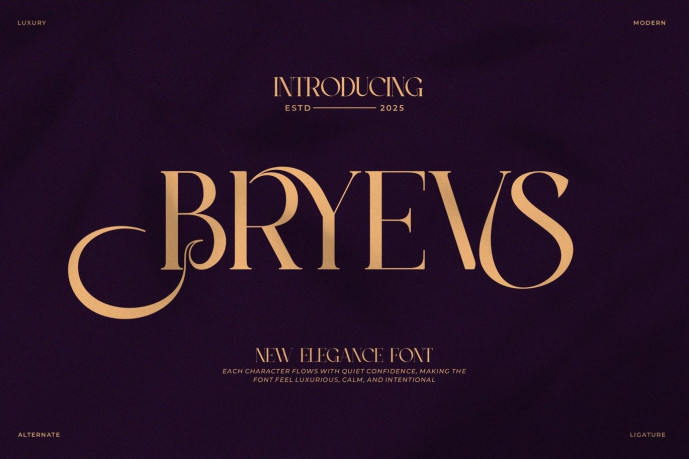
Bryevs Font
Bryevs Font is a stylish and elegant typeface suitable for all brand and logo designs. This elegant and sophisticated serif font has a beautiful character. It’s perfect for invitation card templates, cool logos, movie titles, film names, business cards, book titles, brand names, and various other designs. Bryevs Serif is a flowing serif font that exudes sophistication and a sense of immediacy. Its elegant ligatures make it the ideal partner for any project.